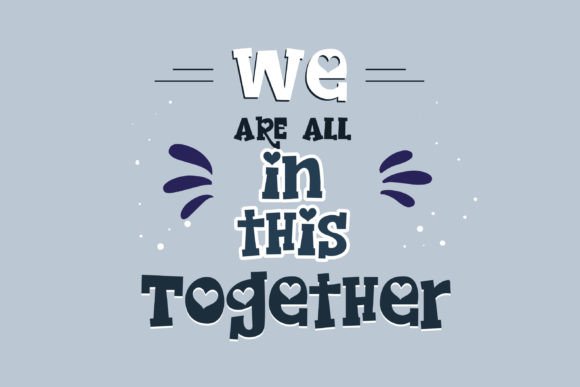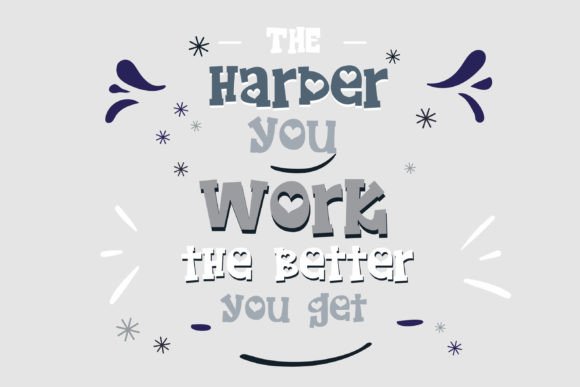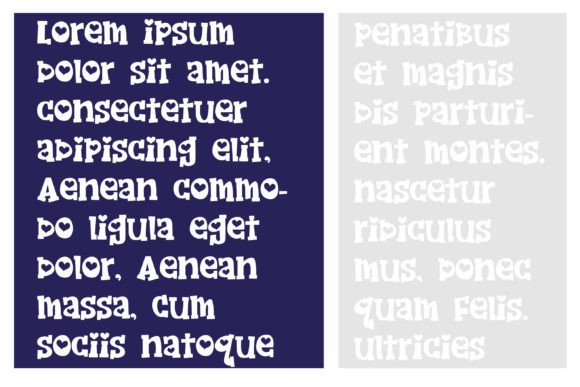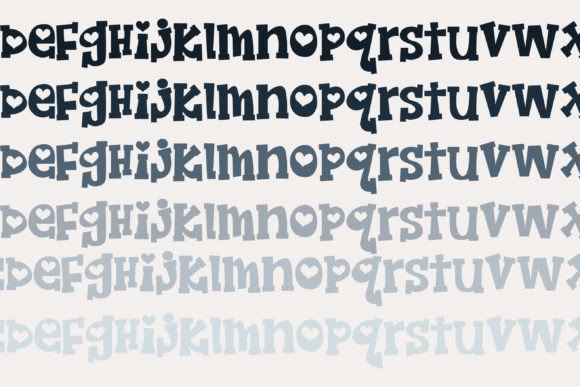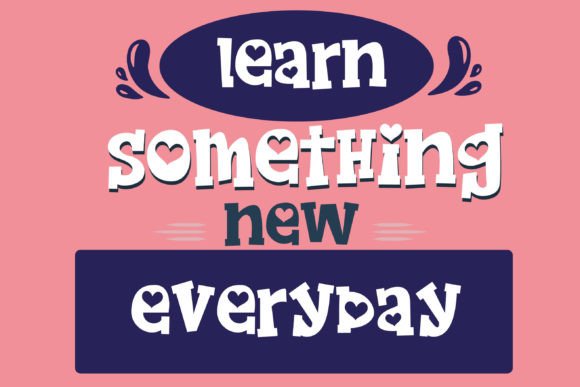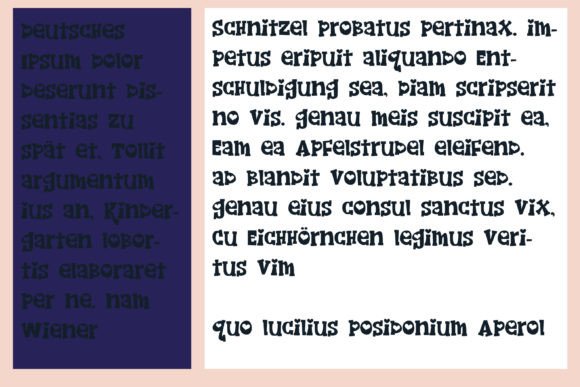
Introduction to Gobs of Gushing Font
It’s that time of the year when creativity flows freely, and love is in the air. You’re brainstorming ideas for a Valentine’s Day project, and your mind is filled with visions of sweet treats, adorable couples, and heartfelt messages. But, have you found the perfect font to match your vision? Look no further, as we introduce you to the delightful Gobs of Gushing Font – a hand-crafted serif display font that’s sure to steal your heart.
This charming font boasts a unique balance of blocky and cute elements, making it an ideal design resource for any creative project. With its transparent background and high-quality design, you can easily incorporate it into your digital creations, from social media graphics to greeting cards and more. As a free download, it’s a valuable addition to any designer’s toolkit, offering endless possibilities for expressing your creativity.
Key Features of Gobs of Gushing Font
- High-quality, vector-based design resource ideal for creative projects
- Unique, hand-drawn style with a transparent background for flexible design options
- Includes a range of characters, including uppercase and lowercase letters, numbers, and punctuation marks
- Designed to be scalable, with a resolution of up to 300 DPI for high-quality printing
- Perfect for use in digital and print-based creative projects, including logos, graphics, and typography
Honest Review: Gobs of Gushing Font
As a designer, I’m always on the lookout for high-quality design resources to elevate my creative projects. Recently, I stumbled upon the Gobs of Gushing Font, and I must say, it’s been a game-changer for me.
- ✨ Unique and playful design that adds a touch of whimsy to any project.
- ✨ Perfect for creative projects that require a bold and eye-catching font.
- ✨ The font comes in a transparent background, making it easy to use in various design applications.
However, I do have a few reservations:
- ⚠️ Limited character set, which may not be suitable for longer texts or complex designs.
- ⚠️ Some users may find the font too playful or overwhelming, which may not be suitable for all design styles.
Overall, I’m impressed with the Gobs of Gushing Font, and I would highly recommend it to designers who are looking for a unique and creative solution for their projects. With its high-quality design and transparent background, it’s a valuable addition to any design resource library.
Tips for Getting the Most Out of Gobs of Gushing Font
Use the Gobs of Gushing Font in conjunction with a transparent background to create a high-quality design that stands out. Experiment with different font sizes and colors to add depth and visual interest to your creative project.
The Gobs of Gushing Font is perfect for use in creative projects such as social media graphics, blog posts, and marketing materials. Its high-quality design and transparent background make it a versatile and effective design resource for any project.